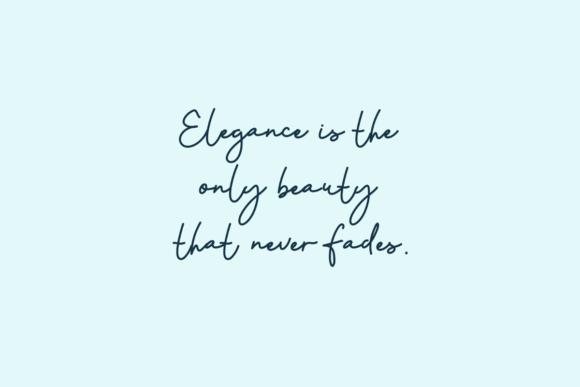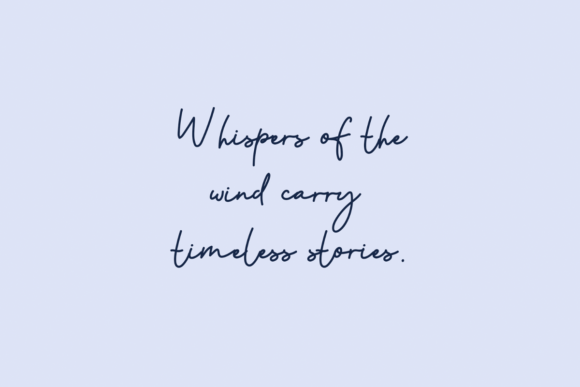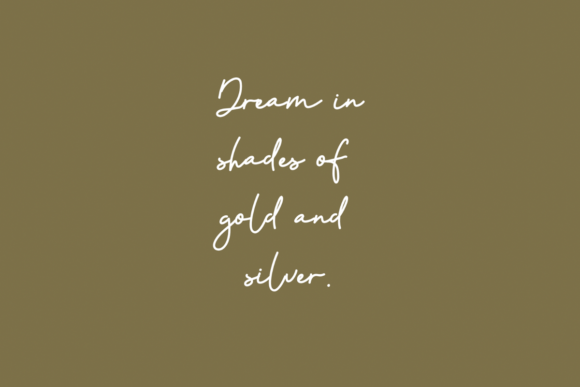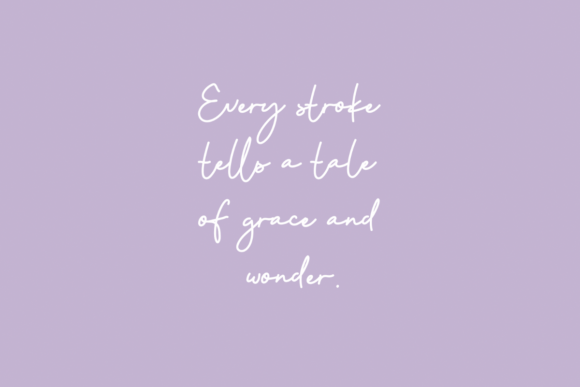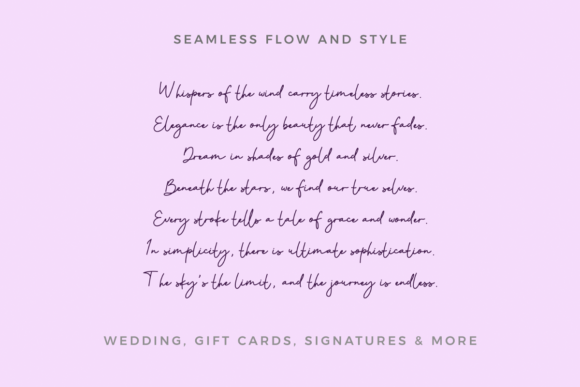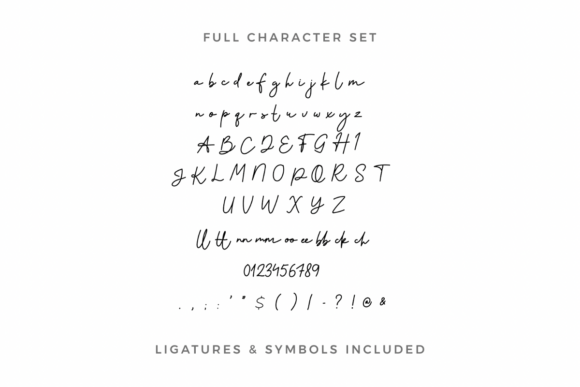
Introducing Belle Dreaming: The Ultimate Elegance in Hand-Scripted Fonts
In the realm of typography, few fonts manage to capture the essence of sophistication and elegance as effortlessly as Belle Dreaming. This exquisite hand-scripted font is a masterpiece of modern calligraphy, designed to bring an unparalleled level of refinement and artistic flair to a wide array of creative projects. Whether you’re a designer, a crafter, or simply someone who appreciates the beauty of fine typography, Belle Dreaming is poised to become your go-to font for all things elegant and stylish.
The Artistry of Belle Dreaming
Belle Dreaming is more than just a font; it’s a curated work of art that encapsulates the very essence of creative expression. Each letter, meticulously crafted by hand, exudes a sense of luxury and sophistication that is hard to find in digital typography. The fluidity of the cursive script, combined with the unique character of each glyph, makes Belle Dreaming a true standout in the world of fonts. It’s an invitation to elevate your designs, to transform the mundane into the extraordinary, and to leave a lasting impression on your audience.
Endless Applications for Belle Dreaming
The versatility of Belle Dreaming is one of its most compelling features. This font isn’t limited to a specific genre or medium; rather, it can be seamlessly integrated into a myriad of projects. Here are just a few ways you can utilize Belle Dreaming to add that extra layer of elegance:
- Wedding Invitations: Make your wedding announcements unforgettable with the enchanting elegance of Belle Dreaming. The font’s sophisticated charm sets the tone for a memorable and stylish celebration.
- Gift Cards: Elevate your gift-giving experience by customizing cards with Belle Dreaming. The font adds a touch of luxury, making even the simplest gesture feel more special.
- Signatures: Add a personal touch to your emails, letters, or artworks with a signature that exudes elegance and refinement.
- Planners and Journals: Transform your planners or journals into keepsakes with Belle Dreaming. The font’s artistic appeal makes it perfect for headings, titles, or even decorative borders.
- Note-Taking: Bring a level of sophistication to your everyday notes. Whether you’re jotting down reminders or recording thoughts, Belle Dreaming makes the act of writing feel more luxurious.
Why Choose Belle Dreaming?
In a digital world saturated with generic fonts, Belle Dreaming offers a breath of fresh air. Here are a few reasons why designers and crafters are gravitating towards this exceptional font:
- Uniqueness: Belle Dreaming is a distinctive font that sets itself apart from more common typefaces. Its unique character ensures your projects stand out.
- Elegance: The font’s sophisticated design makes it perfect for projects that demand a high level of refinement.
- Versatility: Whether digital or print, Belle Dreaming adapts seamlessly to various mediums and applications.
- Emotional Connection: The beauty of Belle Dreaming has the power to evoke emotions, making your projects more impactful and memorable.
Belle Dreaming is more than just a font; it’s a statement of elegance, a declaration of sophistication, and a testament to the power of creative expression. With its unparalleled hand-scripted charm, this exquisite font is poised to revolutionize the way you approach design. Whether you’re crafting beautiful wedding invitations, customizing gift cards, or simply looking to add a touch of luxury to your everyday notes, Belle Dreaming is the perfect choice. Prepare to be captivated by the enchanting elegance of this distinctive font and discover a new world of artistic possibilities.